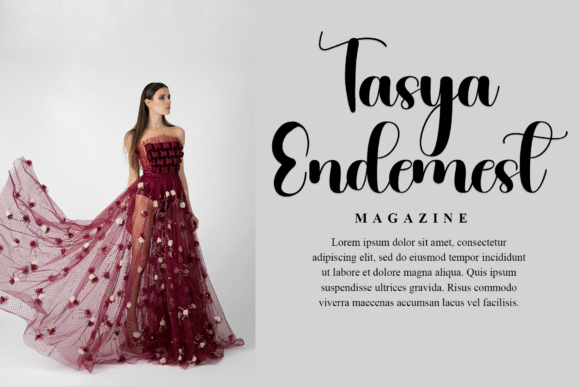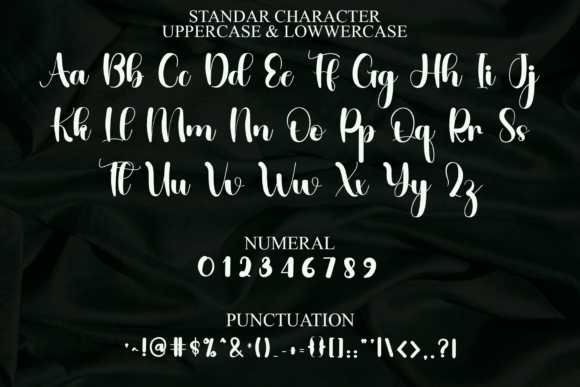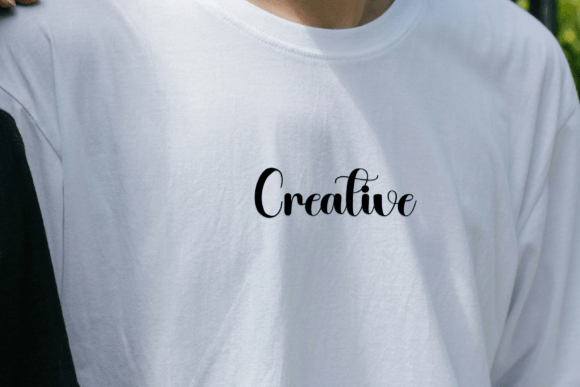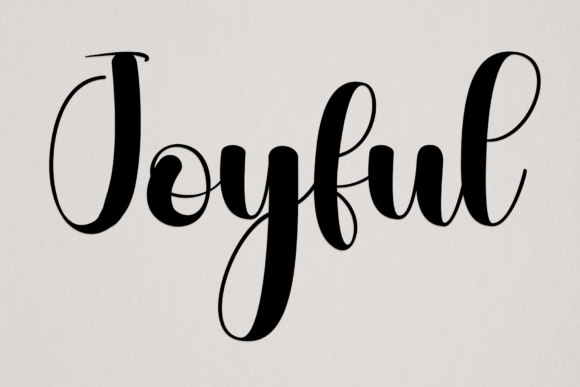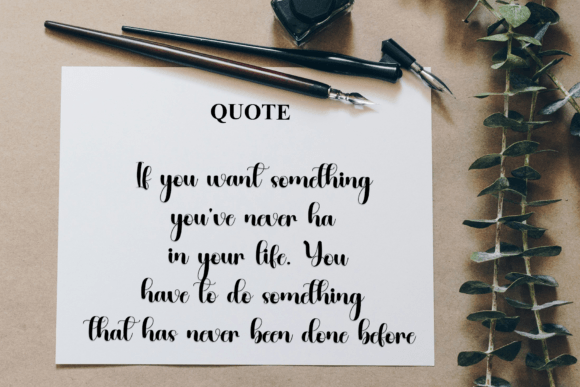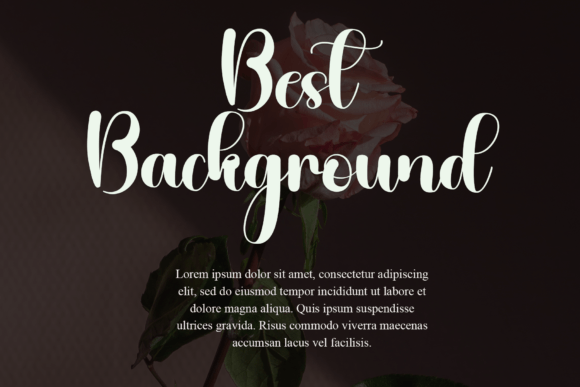
The Aesthetic Font: A Charming Handwritten Delight for Designers
I still remember the design project that led me to discover the Aesthetic font. I was working on a branding project for a trendy new cafe, and I was struggling to find the perfect font that would capture their laid-back yet elegant vibe. That’s when I stumbled upon Aesthetic, a charming handwritten font that instantly won me over. In this article, I’ll share my experience with Aesthetic, its features, and how to make the most of it in your design projects.
An Honest Review of Aesthetic
Aesthetic has quickly become one of my go-to fonts, and here’s what I love about it:
- ✨ Fresh and casual elegance: Aesthetic’s fluid strokes and organic lines evoke a sense of laid-back sophistication.
- ✅ Perfect for various design projects: From branding and invitations to social media graphics, Aesthetic adds a touch of warmth and personality.
- 💫 Highly versatile: Aesthetic works well in both digital and print formats, making it a great choice for a wide range of applications.
However, no font is perfect, and Aesthetic has a few quirks:
- ⚠️ Limited character set: Aesthetic’s character set is somewhat limited, which may not be ideal for projects that require a wide range of special characters.
- 🤔 Not suitable for body text: Aesthetic is best used for headlines, titles, and short paragraphs, as it may not be readable in large blocks of text.
The Story Behind Aesthetic
Aesthetic was designed by a team of creatives who wanted to create a font that would capture the essence of laid-back elegance. Inspired by the beauty of handwritten scripts, Aesthetic’s designers aimed to create a font that would be both fresh and sophisticated. The result is a charming handwritten font that’s perfect for a wide range of design projects.
| Font Name | Aesthetic Font |
| What is Aesthetic? | Aesthetic is a charming handwritten font with a sense of freshness and casual elegance. |
| What can I use Aesthetic for? | Aesthetic is perfect for various design projects, including branding, invitations, social media graphics, and more. |